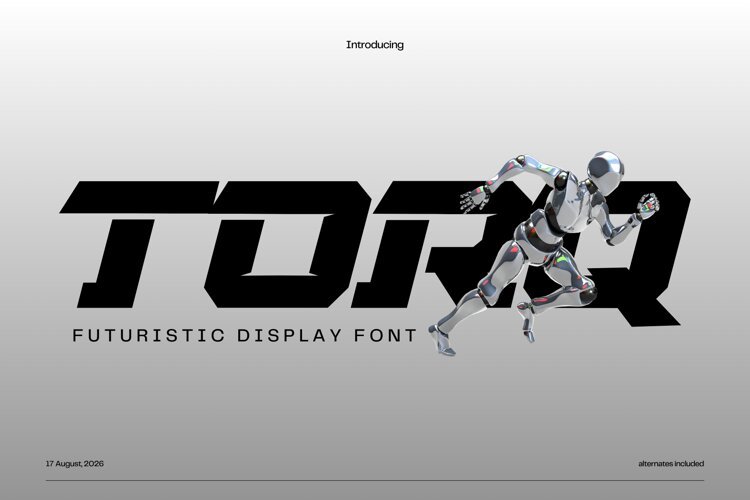
Introduce Torq, a cutting-edge futuristic display font designed to give your logos and tech-themed projects a sleek, sci-fi aesthetic. This modern typeface is perfect for branding, tech startups, cyberpunk posters, video game titles, esports logos, sci-fi book covers, and modern apparel design.
Torq